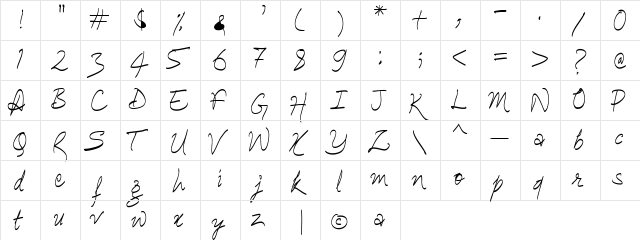
Ananda Hastakchyar Regular
| Designer | Ananda K. Maharjan |
Design Context for Ananda Hastakchyar Typeface
Ananda Hastakchyar takes a measured approach to typography — its balanced proportions and neutral character make it a reliable workhorse for both digital and print work.